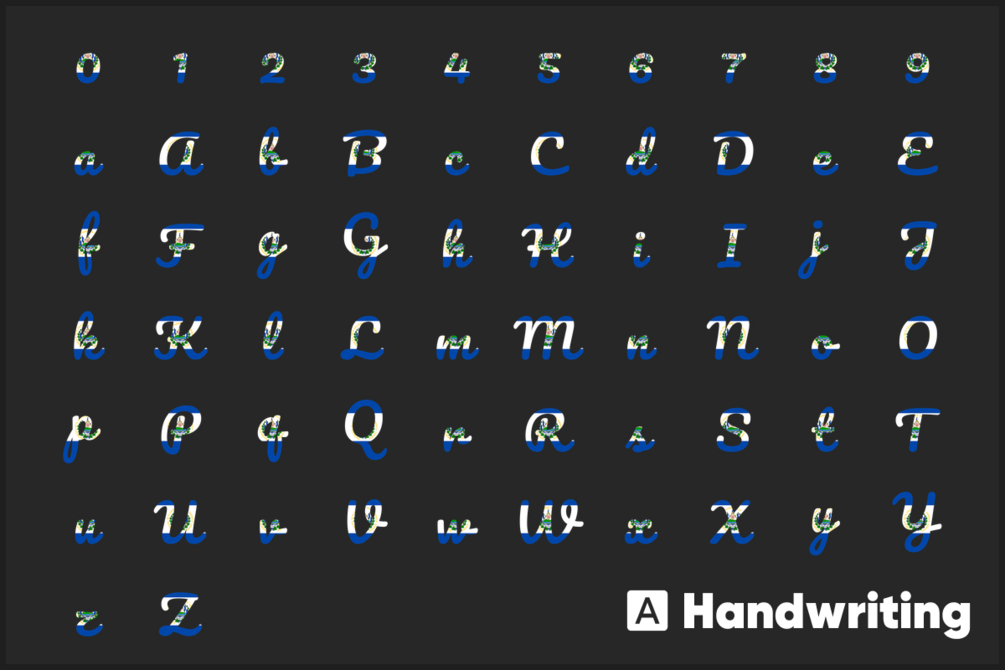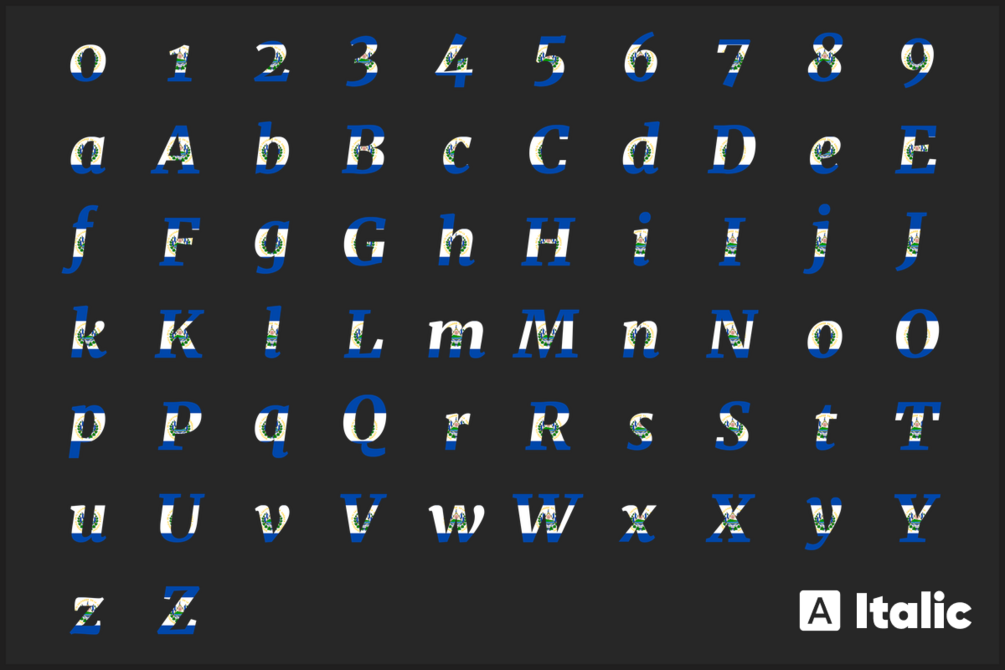
El Salvador Font free download
El Salvador Font free download Flag Font, Letters. These stunning country font images are perfect for all your crafting needs! Use El Salvador Font free download flag PNG images for t-shirt designs, scrapbooking, photo albums, card making, mug designs, prints, and anything else you can think of.
El Salvador